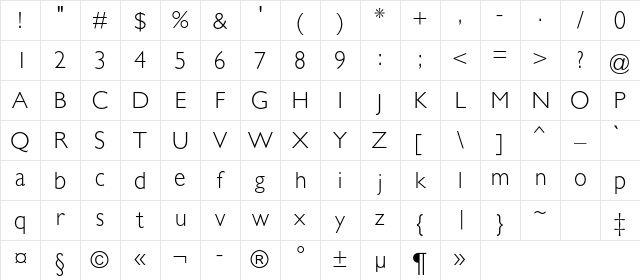
GalsLight Regular Free Font
GalsLight Regular
Design Context for GalsLight
GalsLight is a composed and adaptable typeface that performs quietly and consistently across a wide range of design contexts. Its slender proportions lend an understated elegance to any composition.